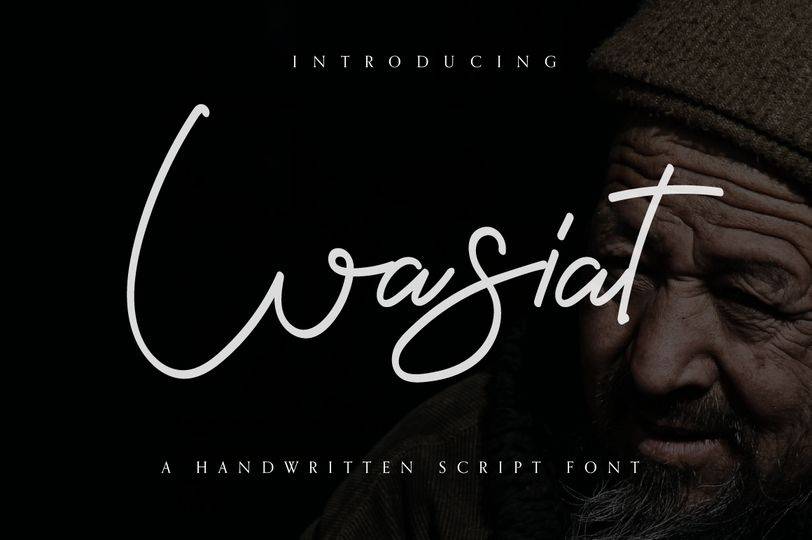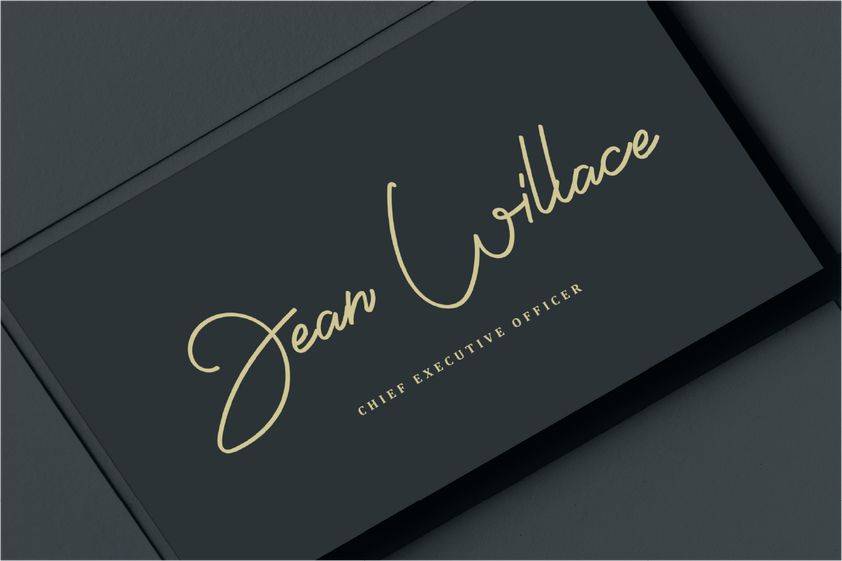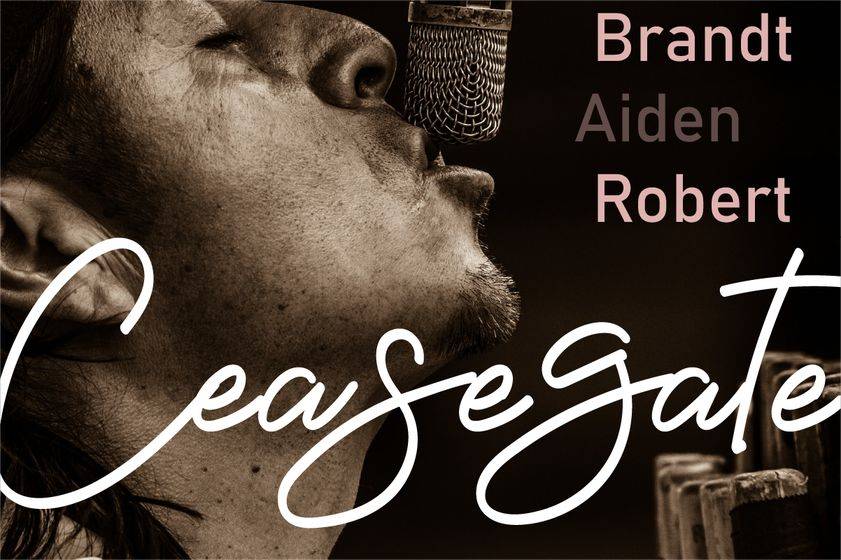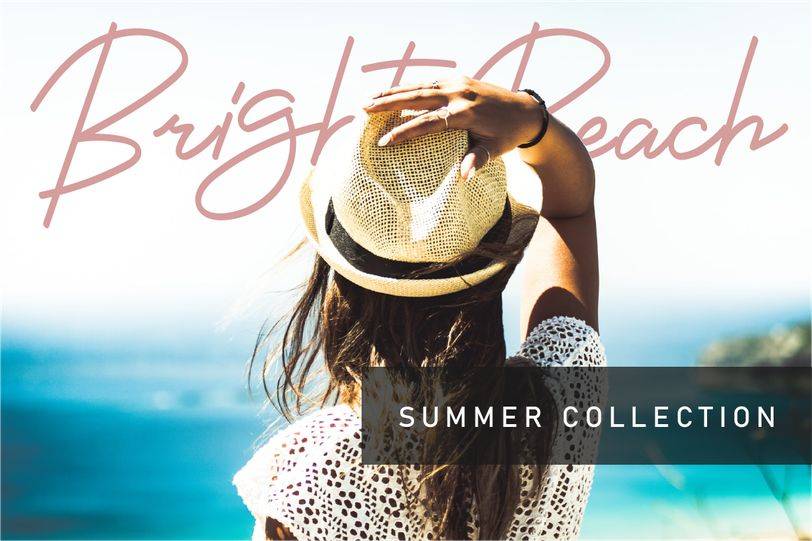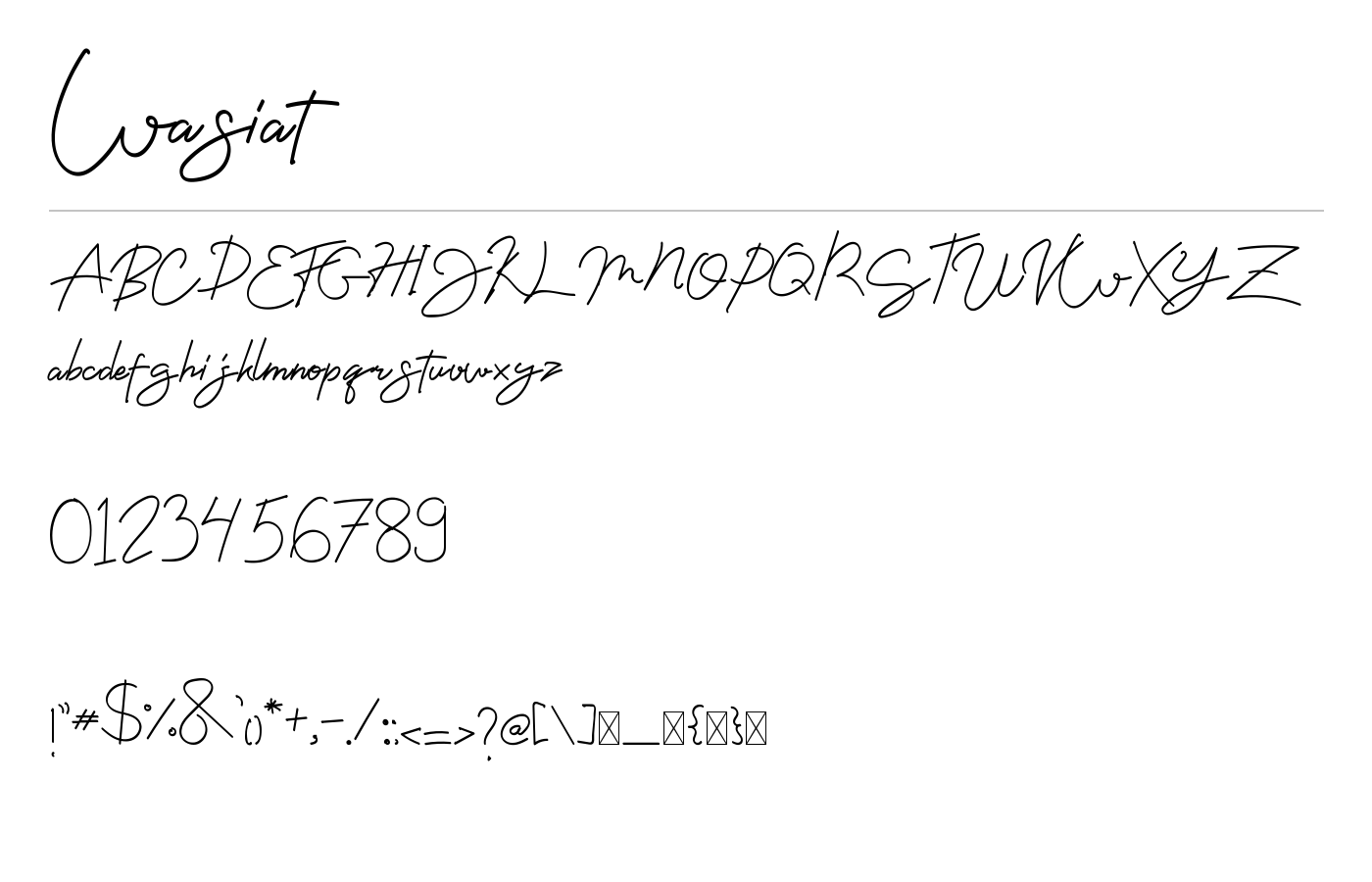
Wasiat is a delicate and elegant handwritten script font with a light weight and airy, flowing style. Its tall, narrow letterforms and smooth, organic strokes create a personal, sophisticated feel, making it perfect for invitations, branding, and creative projects seeking a touch of refined charm. This font works beautifully for designs that want to convey warmth and elegance without overwhelming the layout.
Wasiat Font
About Wasiat Font